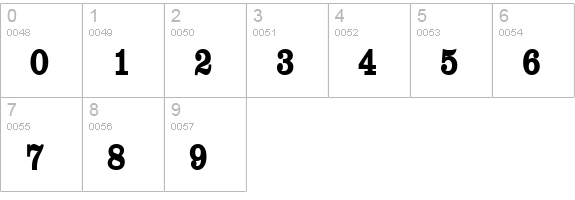
Clare-Condensed Bold Font Details
Clare-Condensed Bold is a strong, high-contrast, condensed-width variant in the Clare typeface family \xE2\x80\x94 well suited to headlines, attention-grabbing titles, and strong calls-to-action.
Clare-Condensed Bold is a modern and sleek font that exudes confidence and style. With its bold and condensed design, this font is perfect for making a statement in headlines, titles, and branding materials. The clean lines and sharp edges of Clare-Condensed Bold give it a contemporary and professional look that is sure to grab attention. What makes Clare-Condensed Bold even more appealing is that it is available for free download at FontsMarket.com. This means that you can easily access this versatile font and use it in your projects without any cost. Whether you are designing a website, creating marketing materials, or working on a personal project, Clare-Condensed Bold offers a bold and impactful typography solution that is both stylish and accessible. Download Clare-Condensed Bold today and take your designs to the next level!